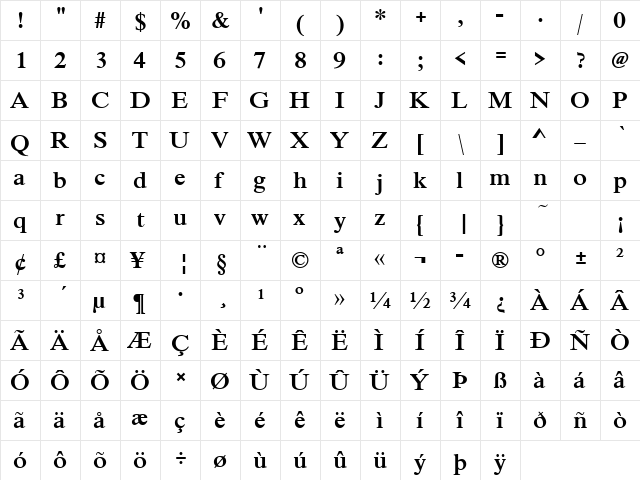
Nimbus Roman Becker No9TMed Regular
Design Context for Nimbus Roman Becker No9TMed Typeface
Nimbus Roman Becker No9TMed is a composed and adaptable typeface that performs quietly and consistently across a wide range of design contexts.